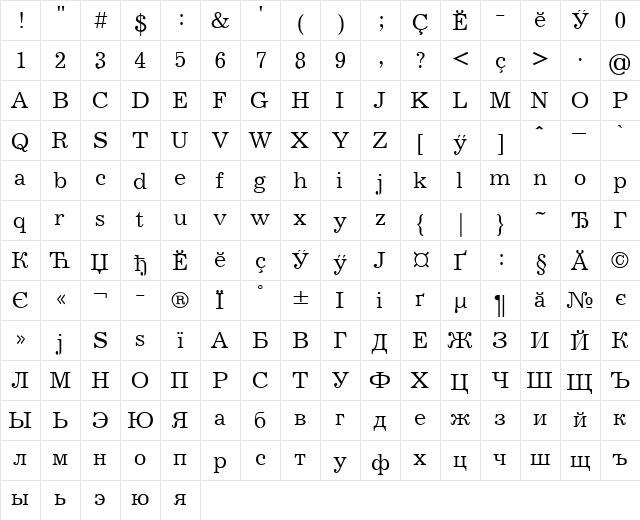
Journal-ChCNP Regular
Design Context for Journal-ChCNP Typeface
Journal-ChCNP takes a measured approach to typography — its balanced proportions and neutral character make it a reliable workhorse for both digital and print work.